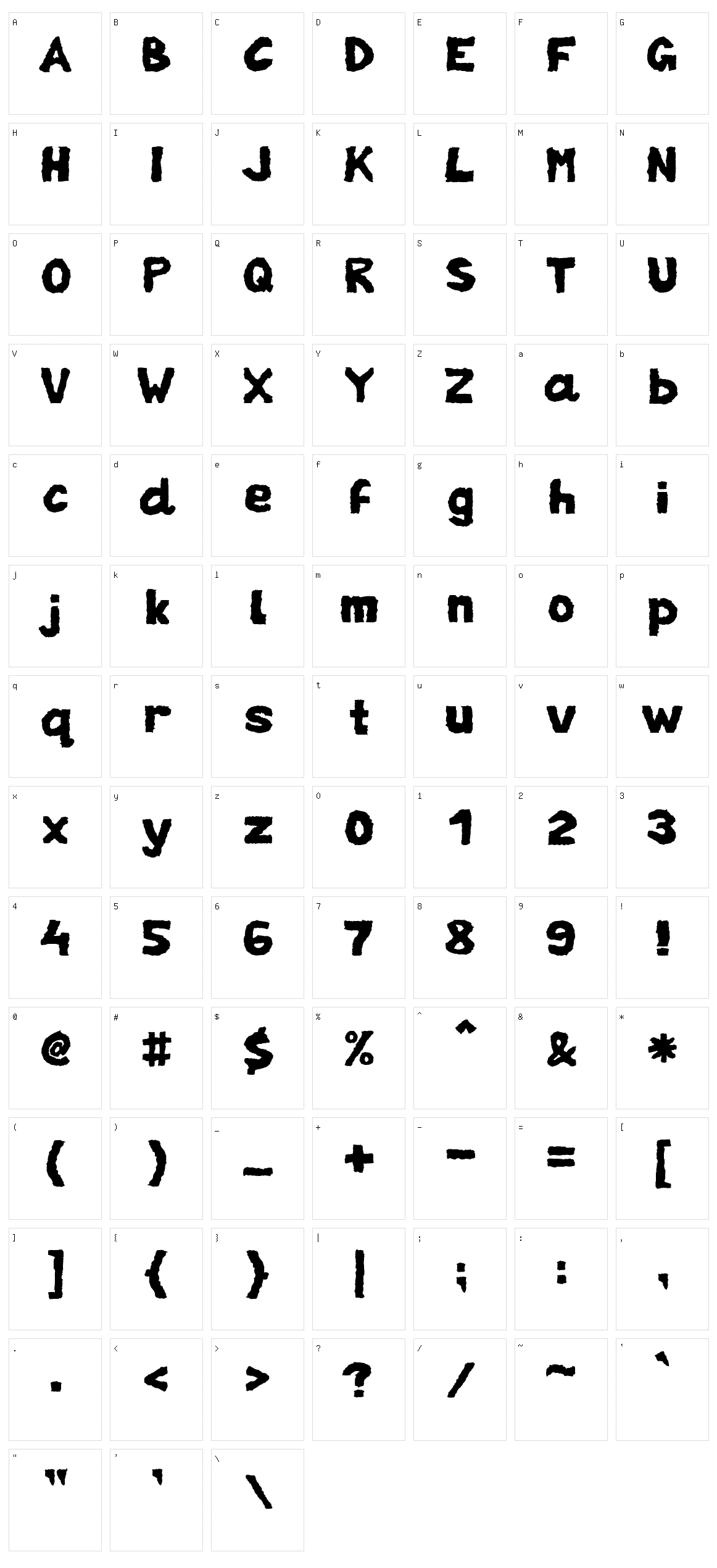
The free font zai Torn Paper is carefully designed by Tomasz Skowroński, showcasing a thoughtful balance of creativity and usability and falls under the Eroded font style. When you download the ZIP file, it contains only 479.31 KB of font files, making it lightweight and quick to download. Please review the license details below to understand permitted usage and distribution rights. If license information is not available, we recommend using this font for personal projects only or contacting the author directly for commercial usage permissions.